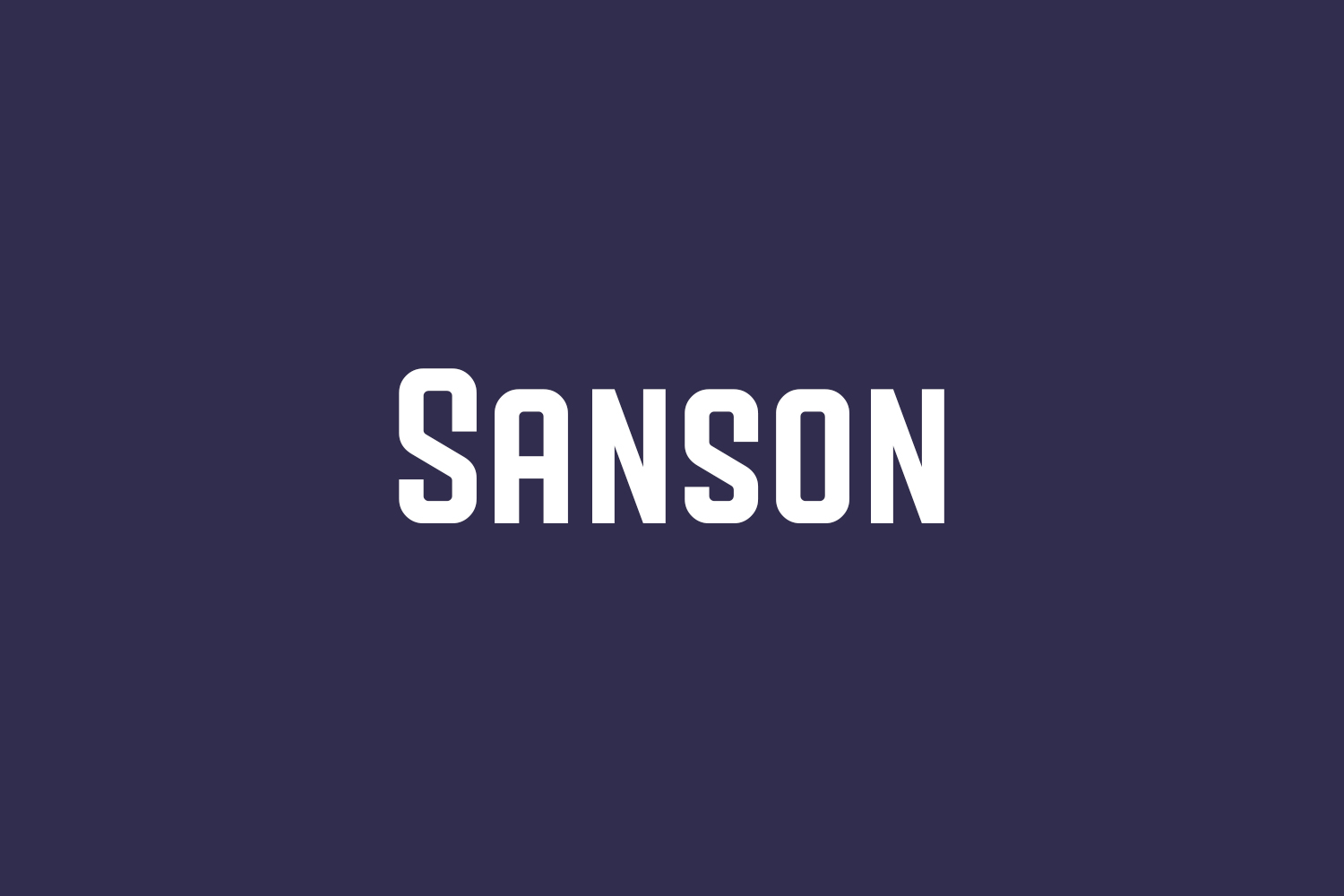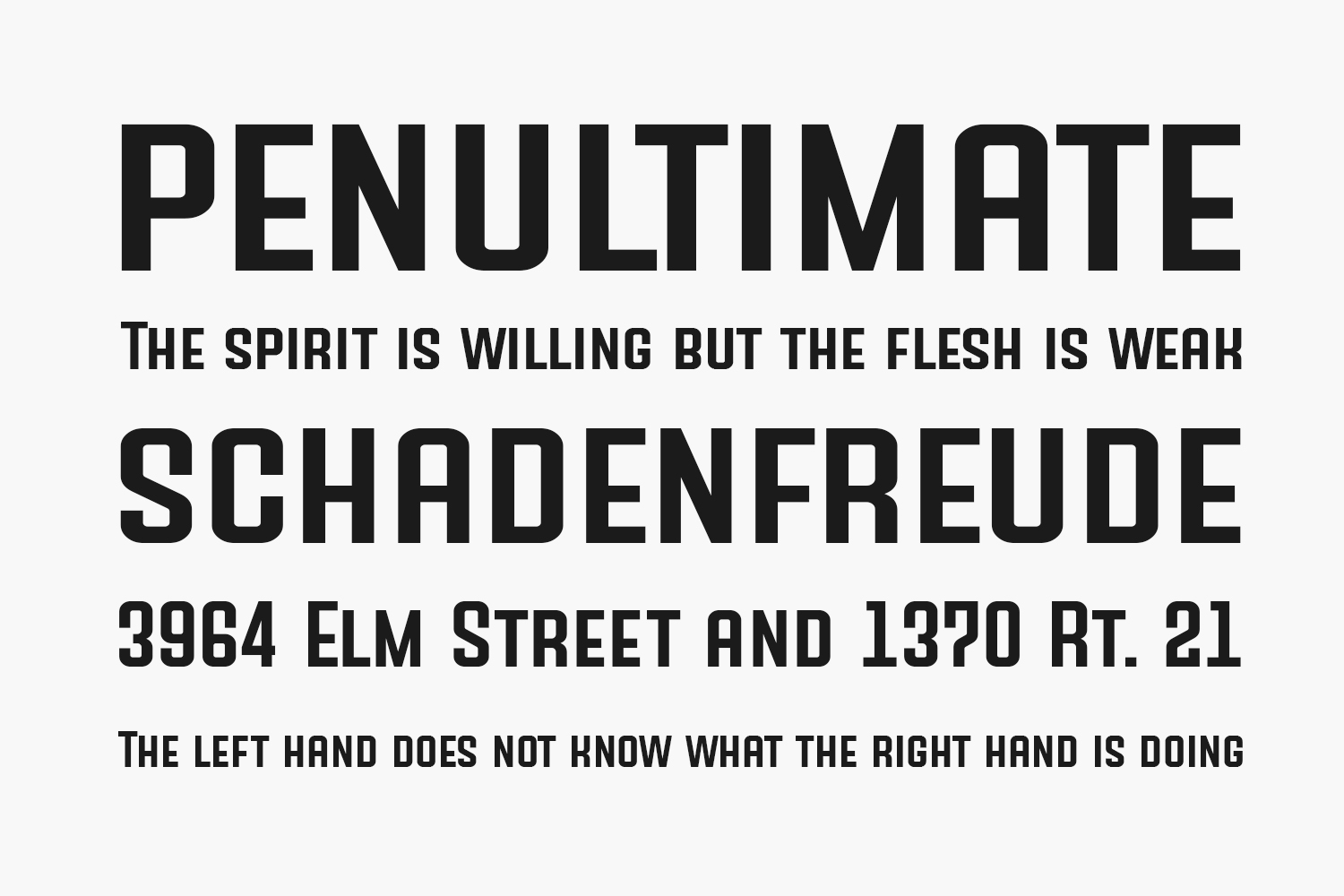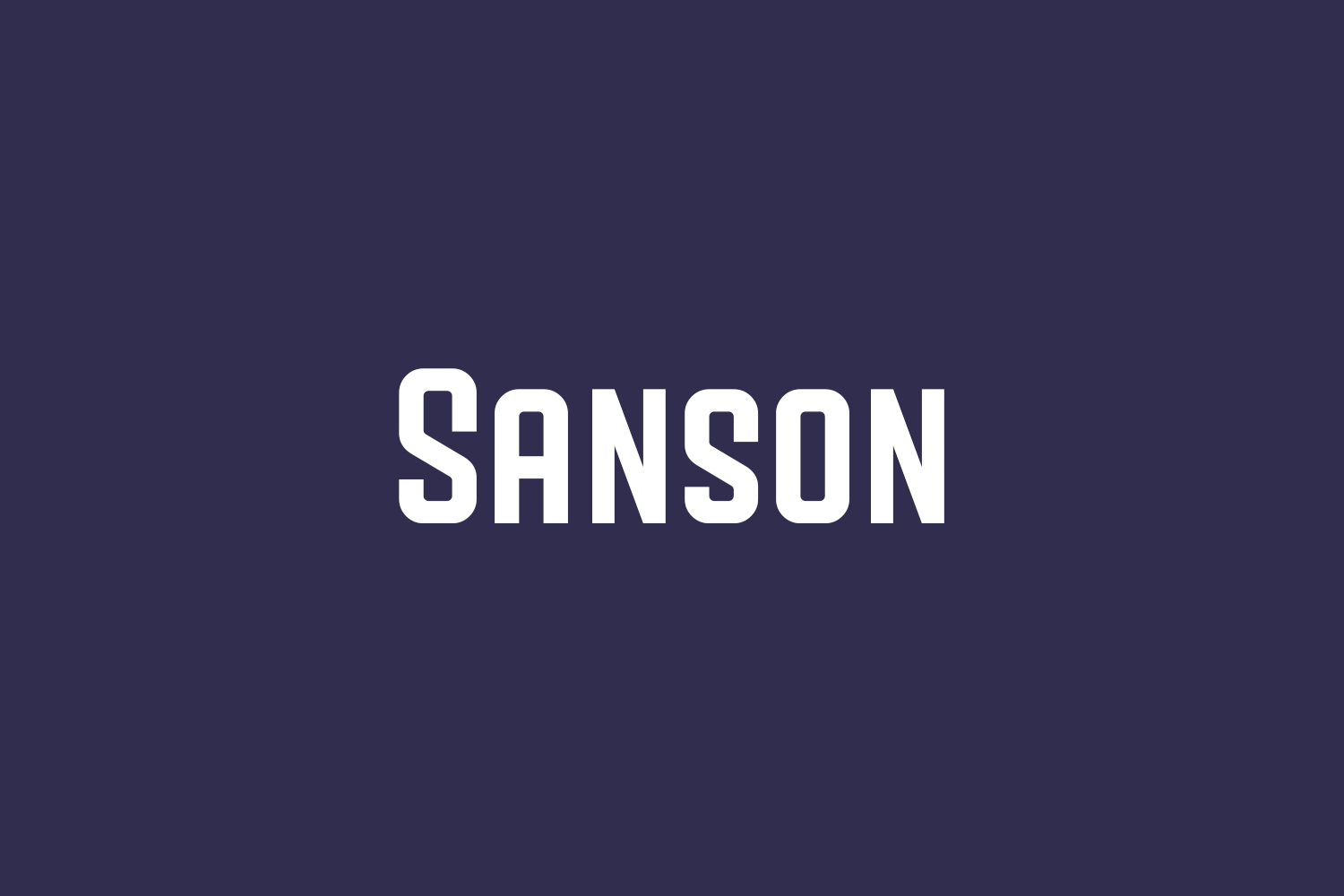
Sanson Free Font is a beautiful Sans serif typeface. With its striking letters, Sanson can be used for every design that needs to stand out. Sanson Free Font was designed by 7NTypes and is free for personal use only. Please purchase the full version for commercial use.